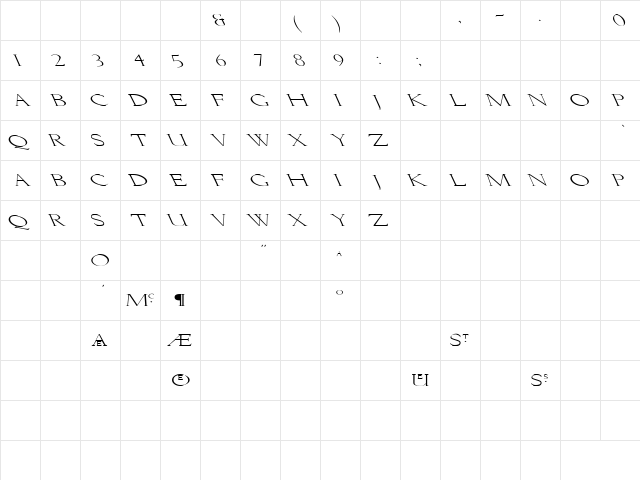
Lichtner Ex Left Regular Font Preview
Lichtner Ex Left Regular
Design Context for Lichtner Ex Left Typeface
Lichtner Ex Left is a composed and adaptable typeface that performs quietly and consistently across a wide range of design contexts.